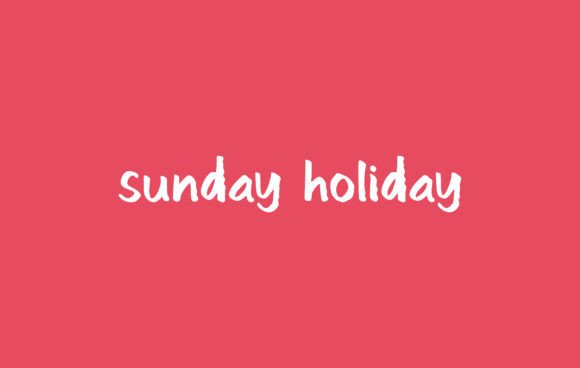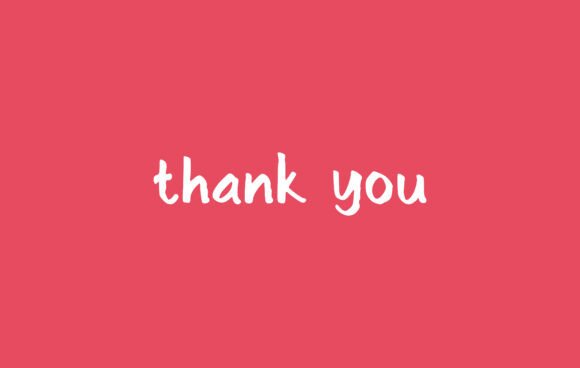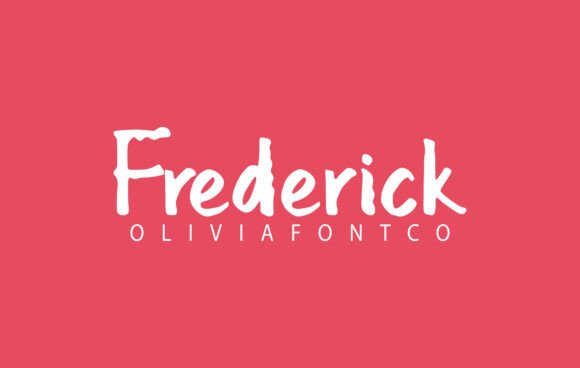
Discover the Charm of Frederick Font: Elevate Your Designs with a Romantic Handwritten Touch
In the world of typography, a well-crafted font can make all the difference in bringing your creative visions to life. If you’re on the hunt for a typeface that exudes warmth, elegance, and a touch of romance, look no further than the Frederick Font. This authentic handwritten font is designed to capture the hearts of designers and crafters alike, offering a versatile and legible script that can elevate a wide range of projects.
The Essence of Frederick Font
Frederick Font is more than just a typeface; it’s an expression of creativity and sophistication. Expertly designed to convey a sense of romance and whimsy, this font is perfect for those looking to add a personal touch to their designs. Whether you’re working on magazine headlines, social media graphics, branding materials, wedding invitations, or greeting cards, Frederick Font offers the perfect blend of style and readability.
Key Features of Frederick Font
• Authentic Handwritten Style: Frederick Font boasts an authentic handwritten look that adds a personal and intimate feel to any design.
• Romantic Touch: Its elegant strokes and curves bring a touch of romance, making it ideal for projects that require a bit of whimsy and charm.
• Legibility: Despite its handwritten nature, Frederick Font is remarkably legible, making it suitable for both title and body text.
• Versatility: From digital media to print, Frederick Font can be used across a variety of platforms and projects.
Applications of Frederick Font
The versatility of Frederick Font makes it a valuable addition to any designer’s toolkit. Here are some of the many ways you can use this beautiful font:
• Magazine Headlines: Stand out with elegant and eye-catching headlines that capture the essence of your story.
• Social Media Graphics: Elevate your social media presence with stylish and engaging graphics that reflect your brand’s personality.
• Branding: Create a cohesive and sophisticated brand image with Frederick Font’s distinctive charm.
• Wedding Invitations: Add a touch of romance and elegance to your wedding invitations and stationery.
• Cards: Whether it’s a birthday, anniversary, or holiday card, Frederick Font brings a personal and heartfelt touch.
Why Choose Frederick Font?
In a sea of digital fonts, Frederick Font stands out for its unique blend of elegance, legibility, and charm. Here are a few reasons why it should be your go-to choice for your next project:
• Unique Appeal: Its authentic handwritten style ensures that your designs will have a distinctive and memorable look.
• Time-Saving: With its excellent legibility, you can use Frederick Font for both headings and body text, streamlining your design process.
• Emotional Connection: The romantic touch of Frederick Font helps create an emotional connection with your audience, making your designs more impactful.
Frederick Font is more than just a typeface; it’s a tool for creativity and expression. Its unique blend of romance, elegance, and legibility makes it an invaluable asset for designers and crafters looking to elevate their projects. Whether you’re aiming to create stunning magazine headlines, captivating social media graphics, or heartfelt wedding invitations, Frederick Font is the perfect choice. Discover the charm of Frederick Font and bring your creative ideas to new heights.